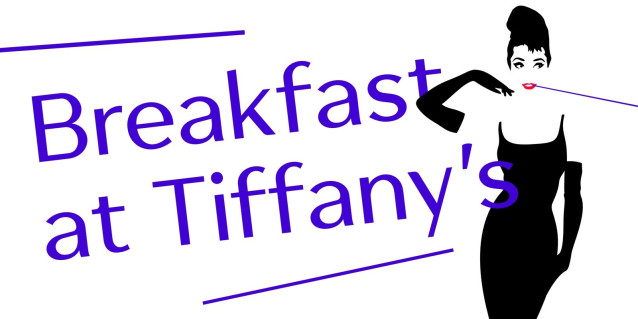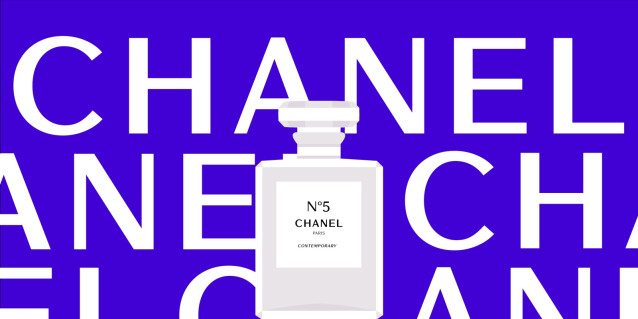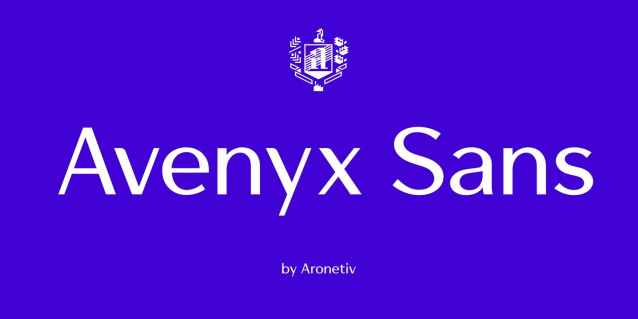
Avenyx Sans Font
Avenyx Sans Font is an elegant high-contrast sans-serif typeface that seamlessly combines the clarity of a grotesque with refined, graceful proportions. Drawing inspiration from the classic Optima-style aesthetic, this typeface showcases smooth stroke modulation and soft, sculptural letterforms while remaining completely serif-free. Its balanced contrast and delicate shapes impart a sophisticated and contemporary personality. Avenyx Sans exudes a light, stylish, and expressive quality, making it particularly well-suited for the fashion industry, beauty brands, luxury packaging, editorials, and modern branding. This typeface harmoniously blends minimalism with a subtle sense of elegance, allowing it to shine in both headlines and refined typography compositions.